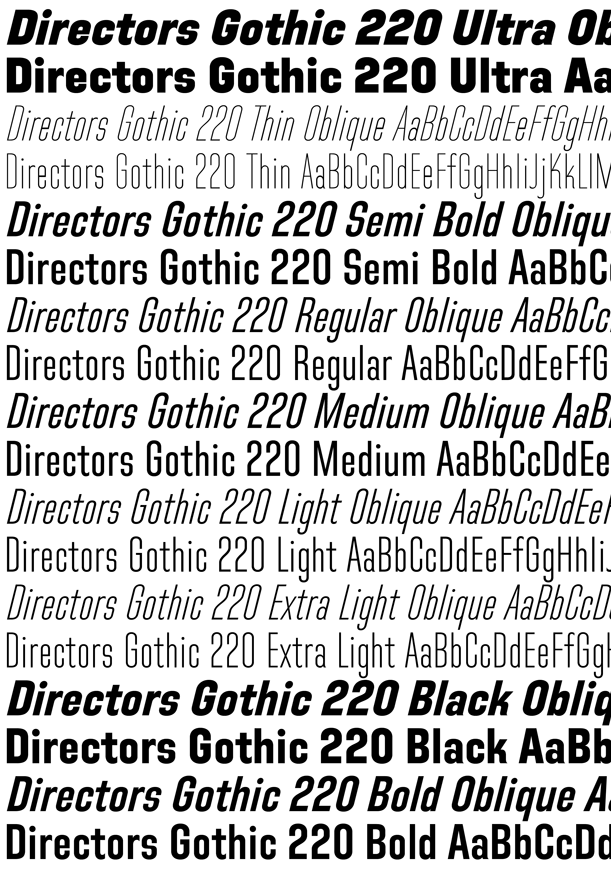
Directors Gothic 220
About Directors Gothic 220
Handcrafted by Lettering Inc as part of its core library of typefaces in the 1930s, Directors Gothic was dramatically expanded throughout the lifetime of the company and remains a timeless classic. Inspired by the Art Deco movement popular at the time…